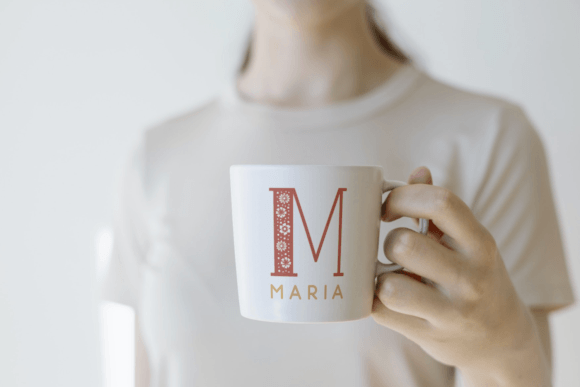
Honey Charm Font
Honey Charm is a sweet and adorable decorative font. Fall in love with its incredibly versatile style and use it to create gorgeous wedding invitations, beautiful stationary art, eye-catching social media posts, and much more!